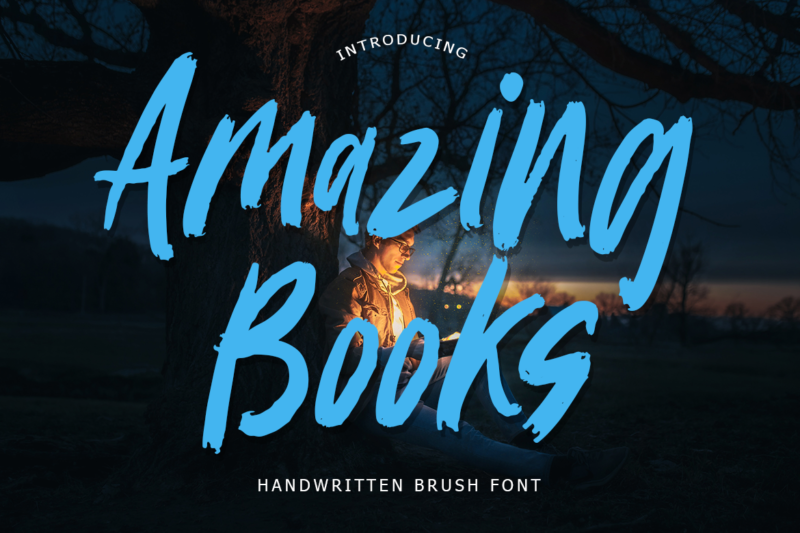
Amazing Book Font
Amazing Books is handwritten Brush font. This font perfect for branding projects, logo, book cover design, tshirt designs, social media posts, advertisements, product packaging, product designs, label, watermark, invitation, stationery and any projects.